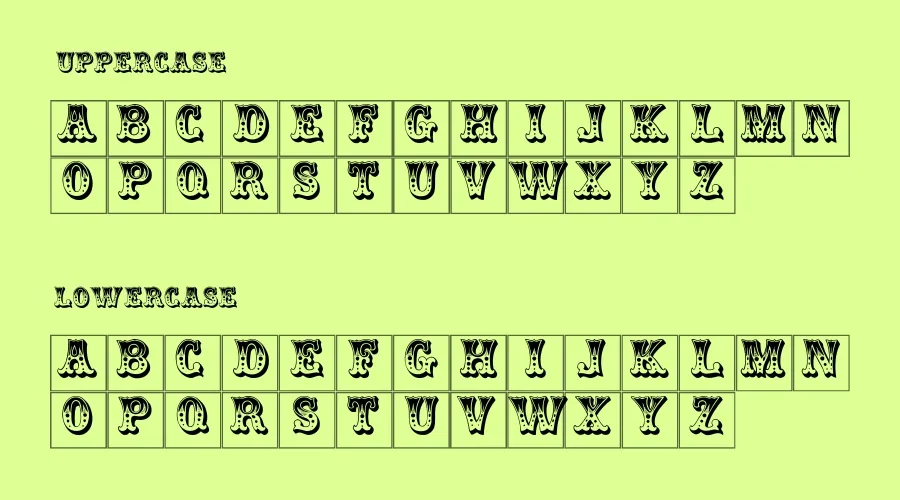
About Circus Font
The typeface has a number of characteristics that makes it perfect for designing content that needs a vintage feel. It has broad strokes and tiny hairlines, creating content with this style is a great choice.
It has wide alphabetic letters that make it easy to read from the distance. It comes in regular weight. Pair it with donrees claws font to improve the quality of the design.
This design has extremely attractive glyphs, making it ideal for any kind of unique project. Several languages have been supported by this text style to create beautiful designs for clients.
It is a fantastic option that works particularly well for headline text and body content. It is recommended that you use this typeface in combination with other typefaces if you want to create a design that is different and beautiful.
This typeface is an amazing selection for developers who demands an eye-catching design. The typeface may be useful for printing tasks like flyers, banners, and even art book designs. This flexible typeface works well while creating logos as well as headline designs.
Name | Circus Font |
Designer | Dan Roseman |
Style | Fancy |
Who designed the Circus font?
Circus Font is a unique fancy text style and it is designed by Dan Roseman.
Where can I use Circus typeface?
The typeface may be useful for printing tasks like flyers, banners, and even art book designs.